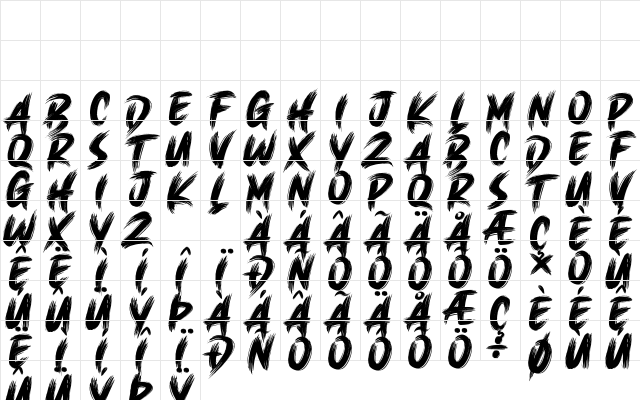
Brush King Regular
Designer: Rangga Singgih Subekti
Design Context for Brush King
Brush King flows with the natural rhythm of handwritten lettering, making it ideal for designs that call for warmth and personal expression.
Font Pairing: Combine Brush King with a simple geometric sans for maximum contrast - the tension between flowing curves and clean structure is a classic typographic pairing.
Pro Tip: Use Brush King for short runs of text - names, titles, or taglines. Extended body copy in script faces tires the eye quickly.